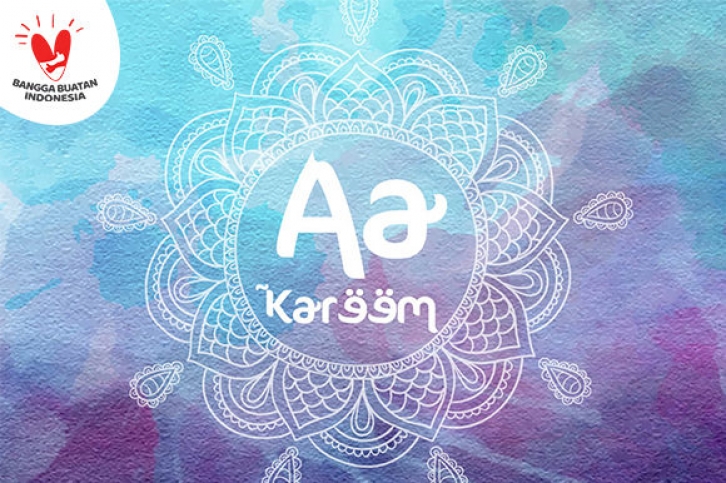
Ahlan Ve Arabez is an interesting display font inspired by the style and feel of the Middle East Arabic. This font is suitable for branding logos, Ramadan themes, and any other projects you can think of.